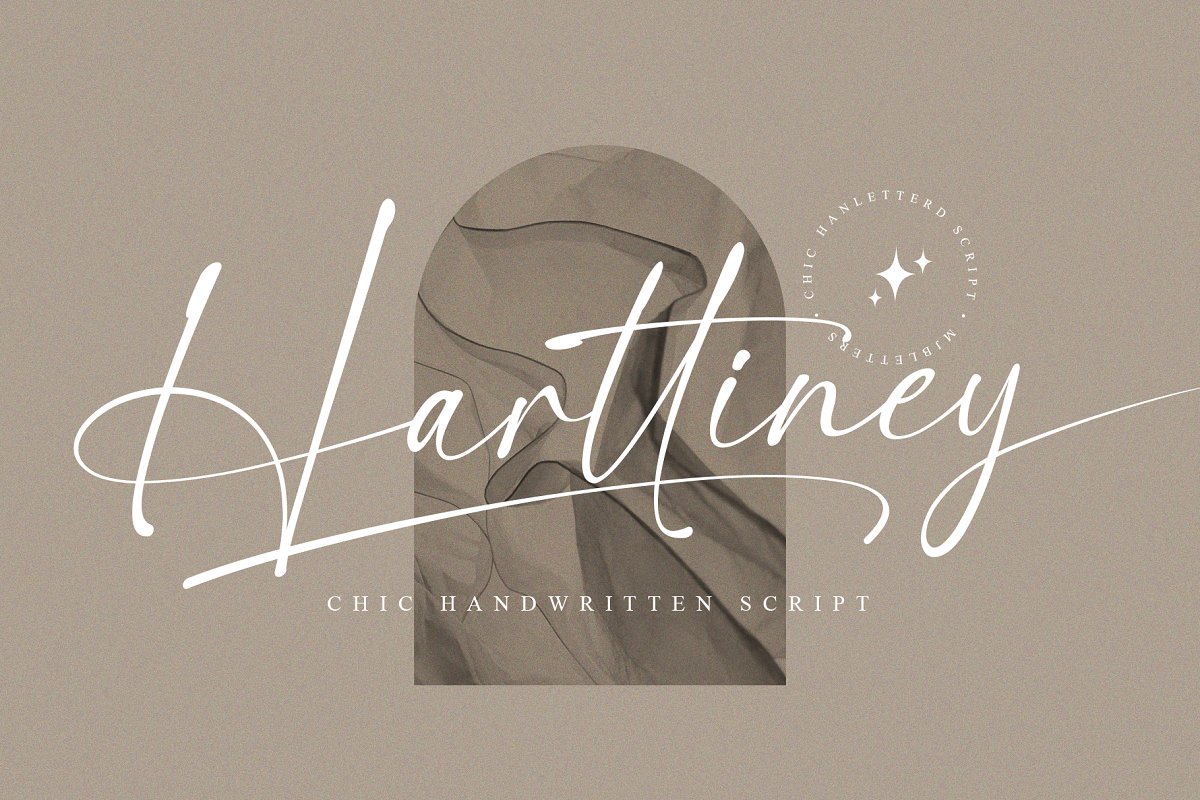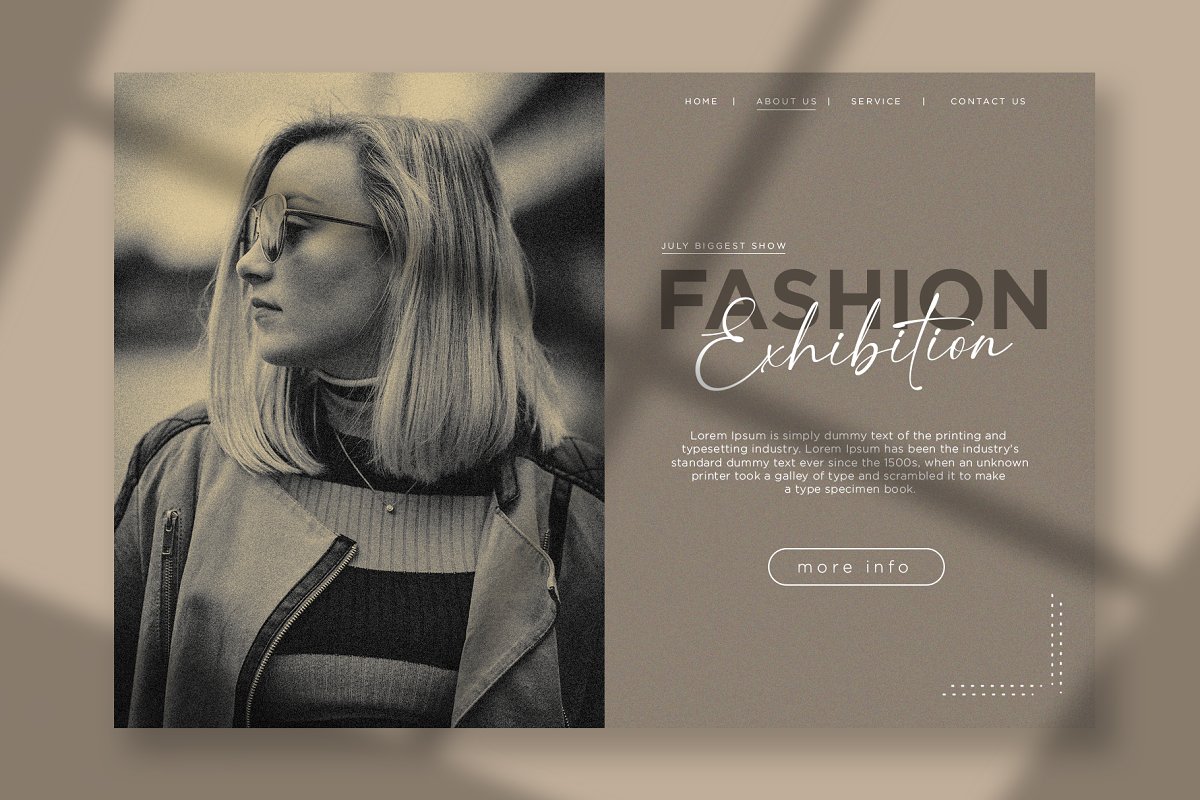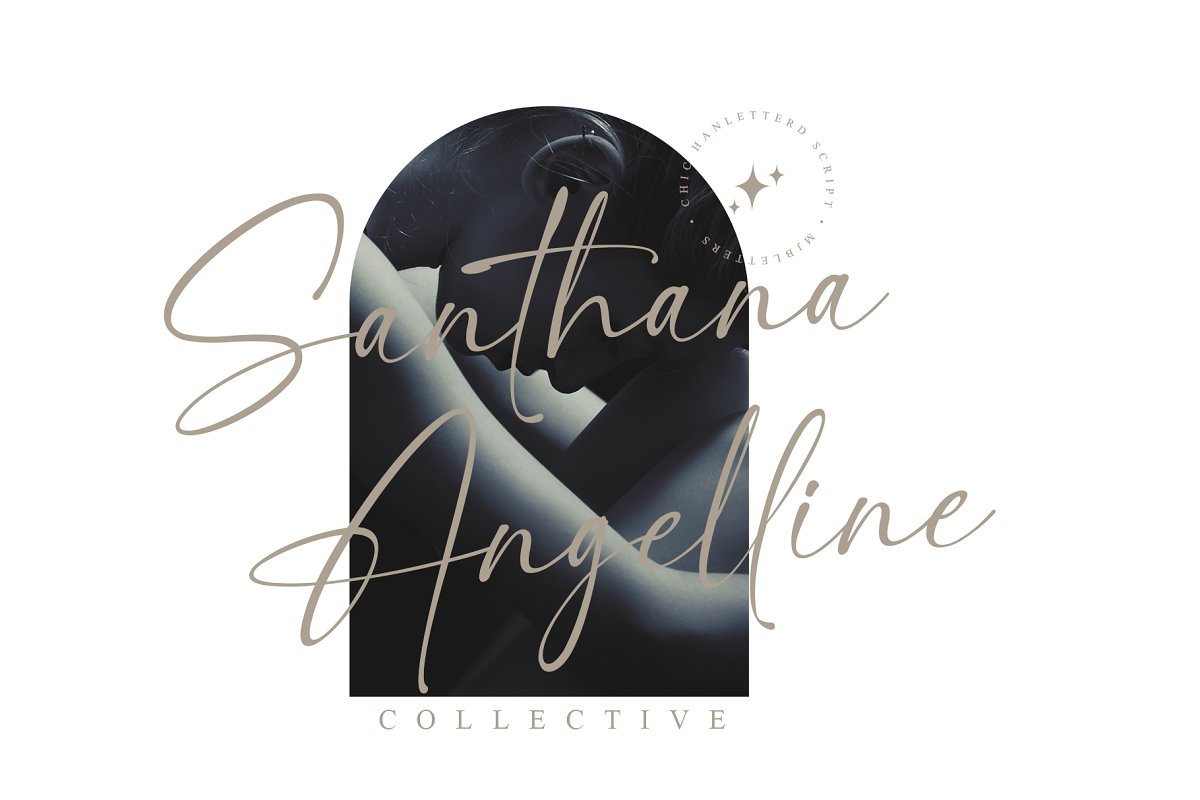
About the Harttiney Handwritten Script Font
Harttiney is a chic handwritten script, every single letter has been carefully crafted to make your design looks great, it’s is a modern script style that has a beautiful beginning & ending swashes added with additional bottom swashes to easily customize your own design, this font is perfect for any purpose, such as logo design, branding design, packaging design, posters, fashion design, wedding invitations, watermarks, and more!Harttiney (OTF/TTF/WOFF)Works on PC & MacSimple installationsAccessible in Adobe Illustrator, Adobe Photoshop, Adobe InDesign, even work on Microsoft Word